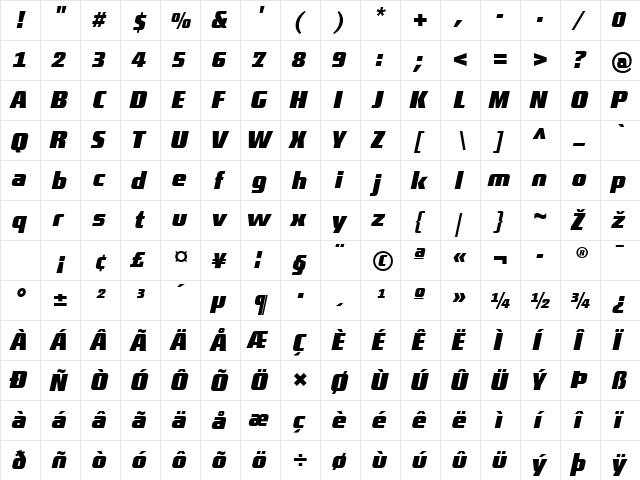
DistrictTF-BoldItalicAlt Regular
| Foundry | FontShop International |
| Designer | Albert Boton |
Design Context for DistrictTF-BoldItalicAlt Typeface
DistrictTF-BoldItalicAlt offers clean, dependable letterforms without strong stylistic allegiance, making it a practical choice for designers who need flexibility. Its italic angle brings a sense of urgency and motion to the letterforms. Its bold stroke weight gives it real presence on the page.